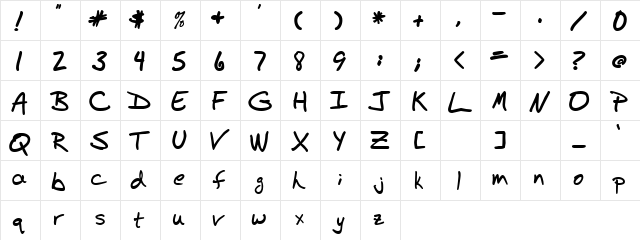
4 Page Scirpt Regular
Design Context for 4 Page Scirpt Typeface
4 Page Scirpt takes a measured approach to typography — its balanced proportions and neutral character make it a reliable workhorse for both digital and print work.